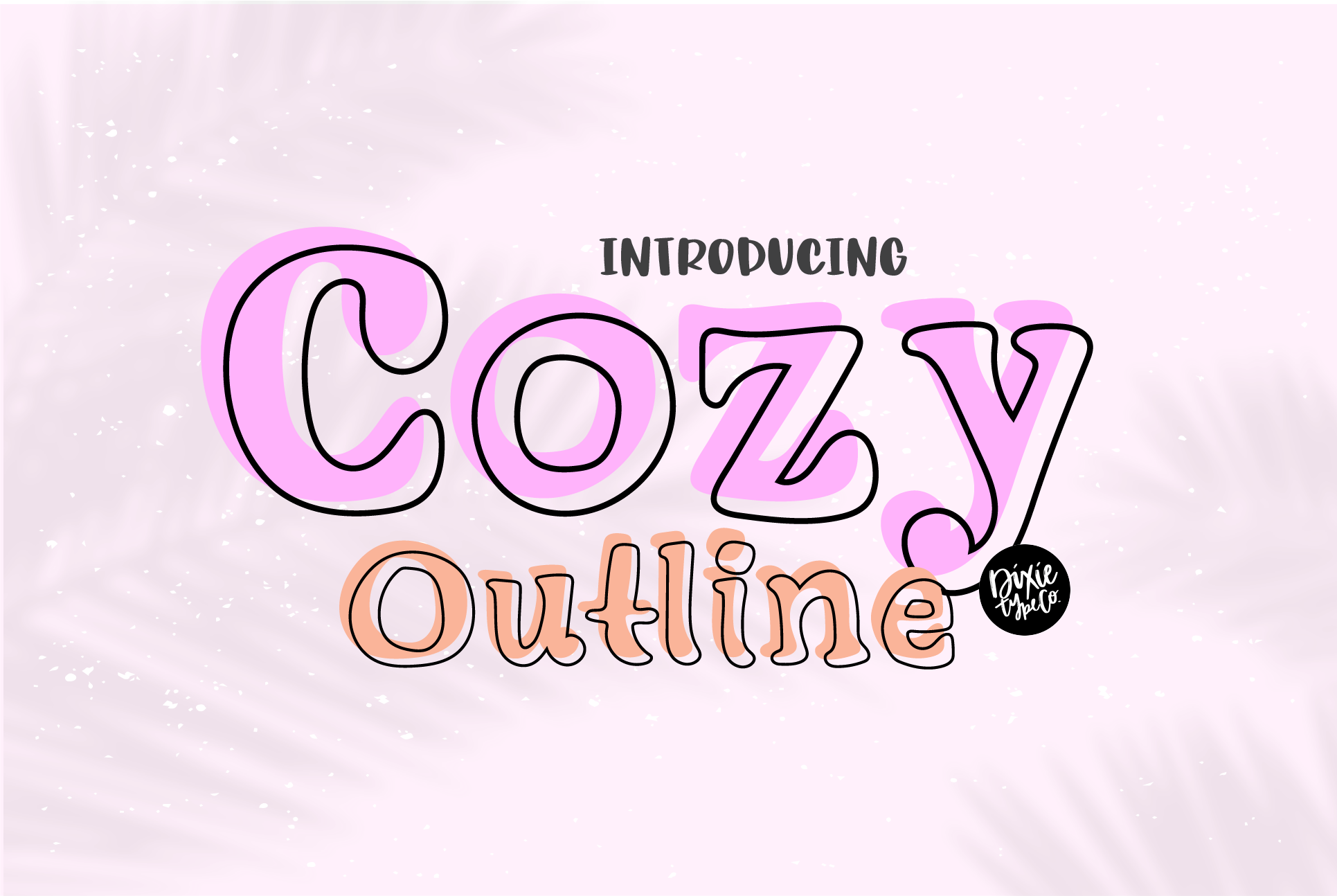
COZY OUTLINE Serif + Outline Font
"Cozy Outline" hand lettered bold serif installable font + outline font. { A typographic font hand lettered with love by Dixie Type Co. }
Cozy is a bold and soft hand lettered serif font. It makes a statement in a friendly way! This serif font also comes with a matching outline font that you can layer on top of the solid version.